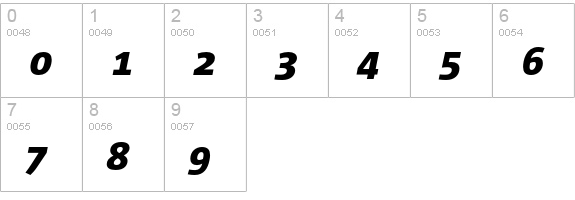
Corpid Heavy Italic is a heavy, high-impact, italic variant in the Corpid typeface family \xE2\x80\x94 well suited to high-impact headlines, posters, and display advertising.
Corpid Heavy Italic is a bold and dynamic font that exudes strength and modernity. Its thick strokes and slanted italics create a powerful and impactful appearance, making it perfect for headlines, titles, and branding projects. The font's unique design adds a touch of sophistication and elegance to any design. What sets Corpid Heavy Italic apart is that it is not only visually striking but also free to download. Yes, you read that right - this premium font is freely available for download at FontsMarket.com. Whether you're a designer looking to add a bold touch to your project or a business in need of a strong and memorable visual identity, Corpid Heavy Italic is the perfect choice. Download it today and elevate your designs with this impressive and versatile font.